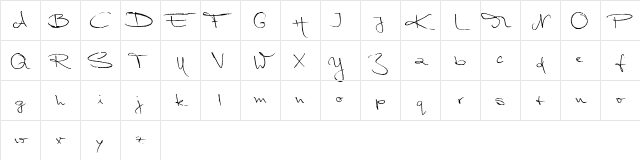
Marleen Script reduced Normal
Foundry: ingoFonts Augsburg Ingo Zimmermann
Designer: Marleen Baumann, Ingo Zimmermann
Design Context for Marleen Script reduced
Marleen Script reduced flows with the natural rhythm of handwritten lettering, making it ideal for designs that call for warmth and personal expression.
Font Pairing: Combine Marleen Script reduced with a simple geometric sans for maximum contrast - the tension between flowing curves and clean structure is a classic typographic pairing.